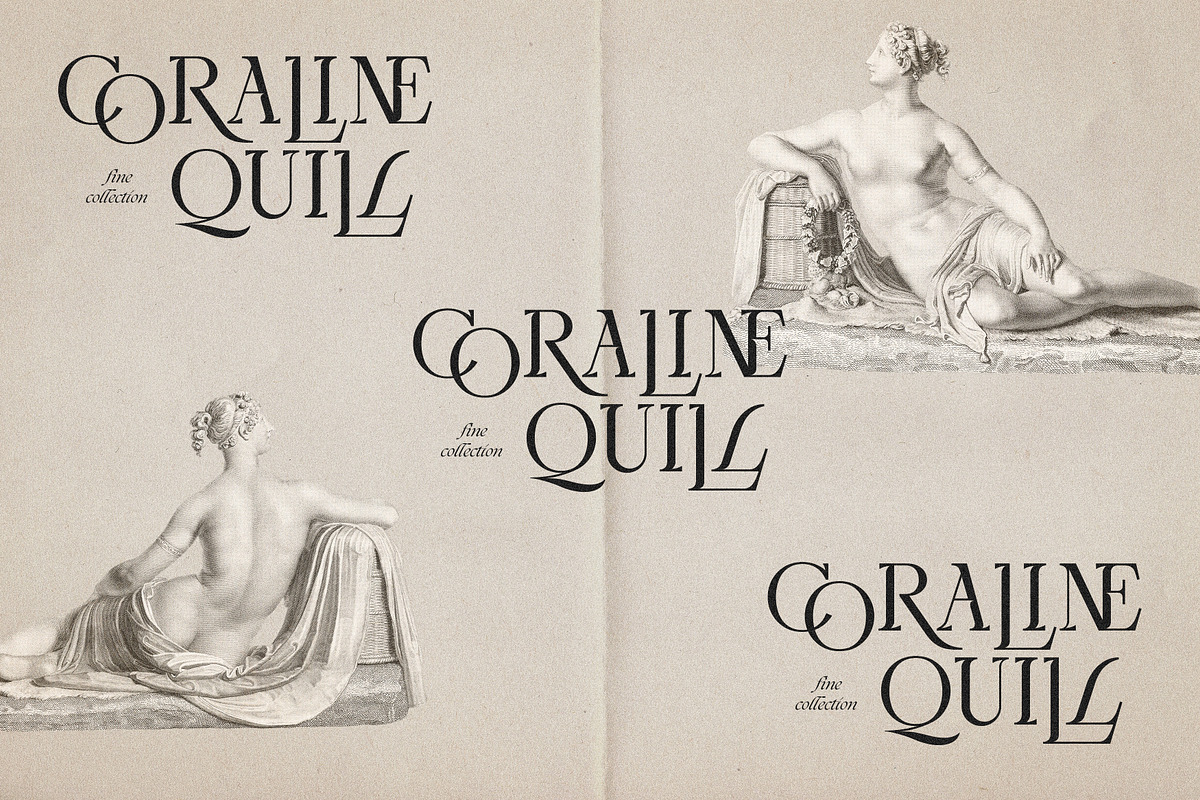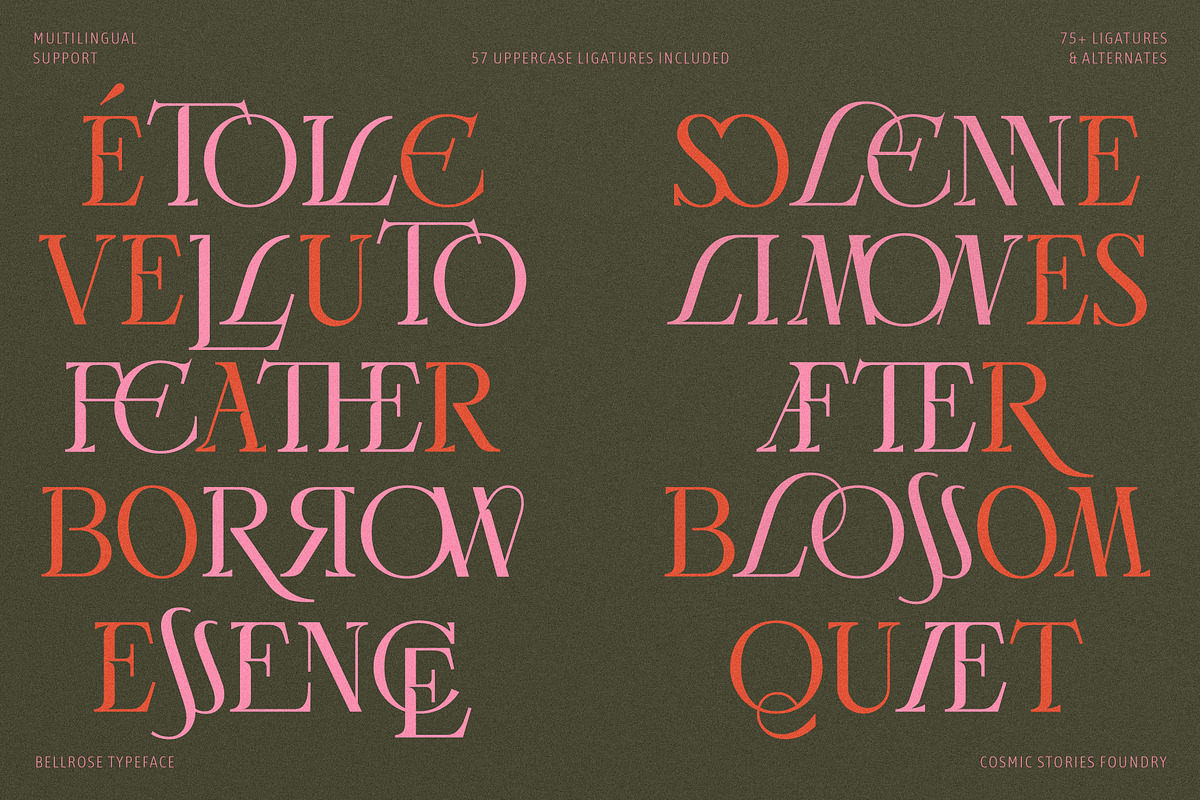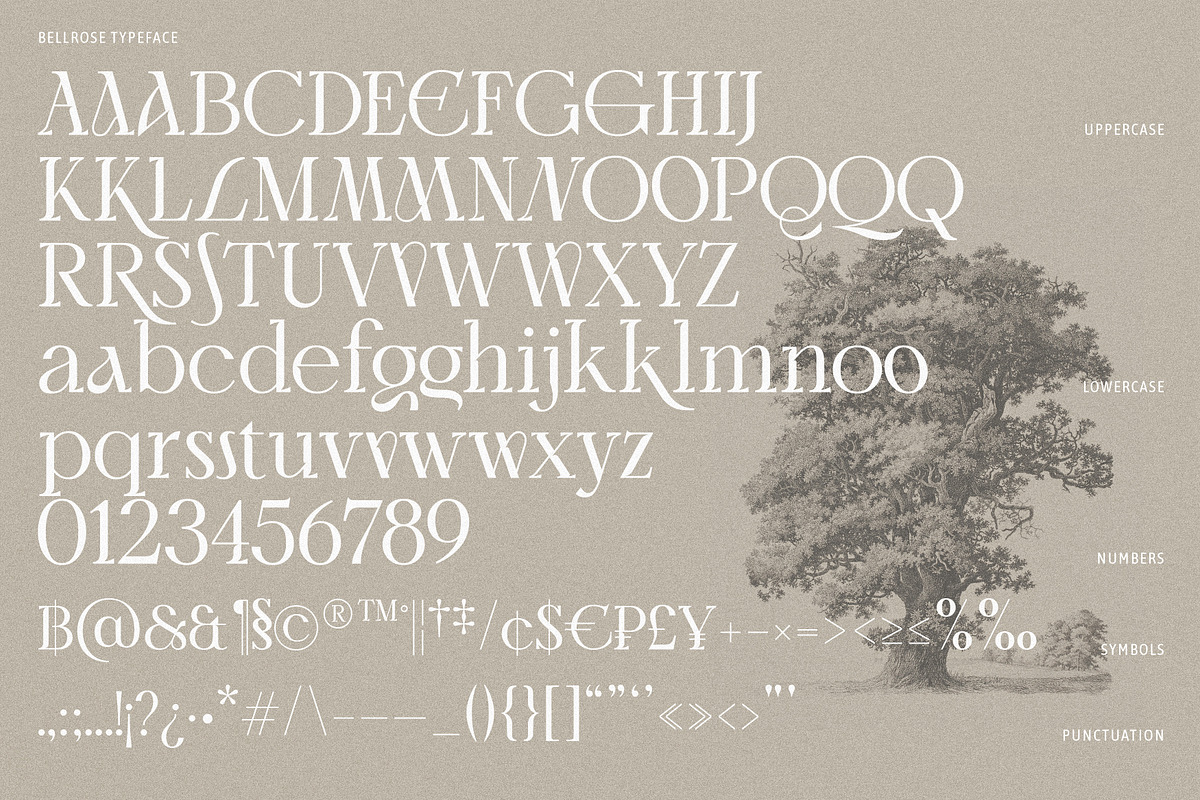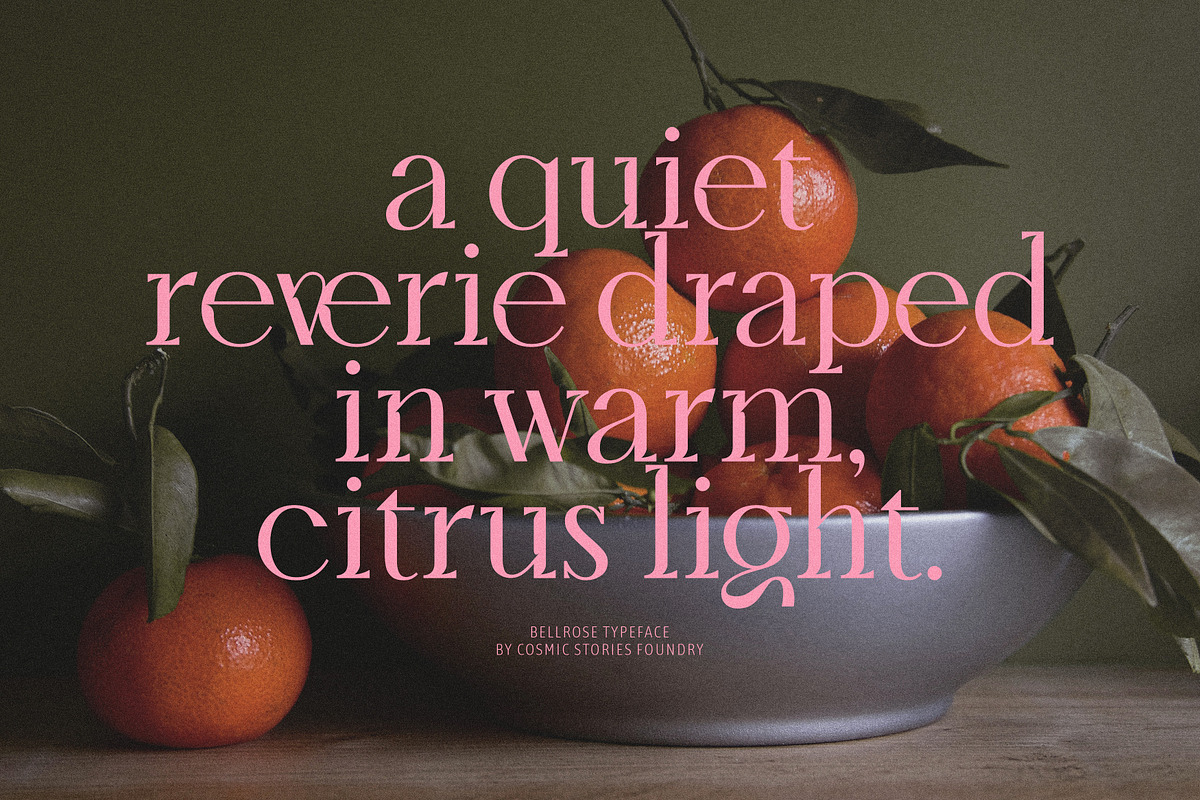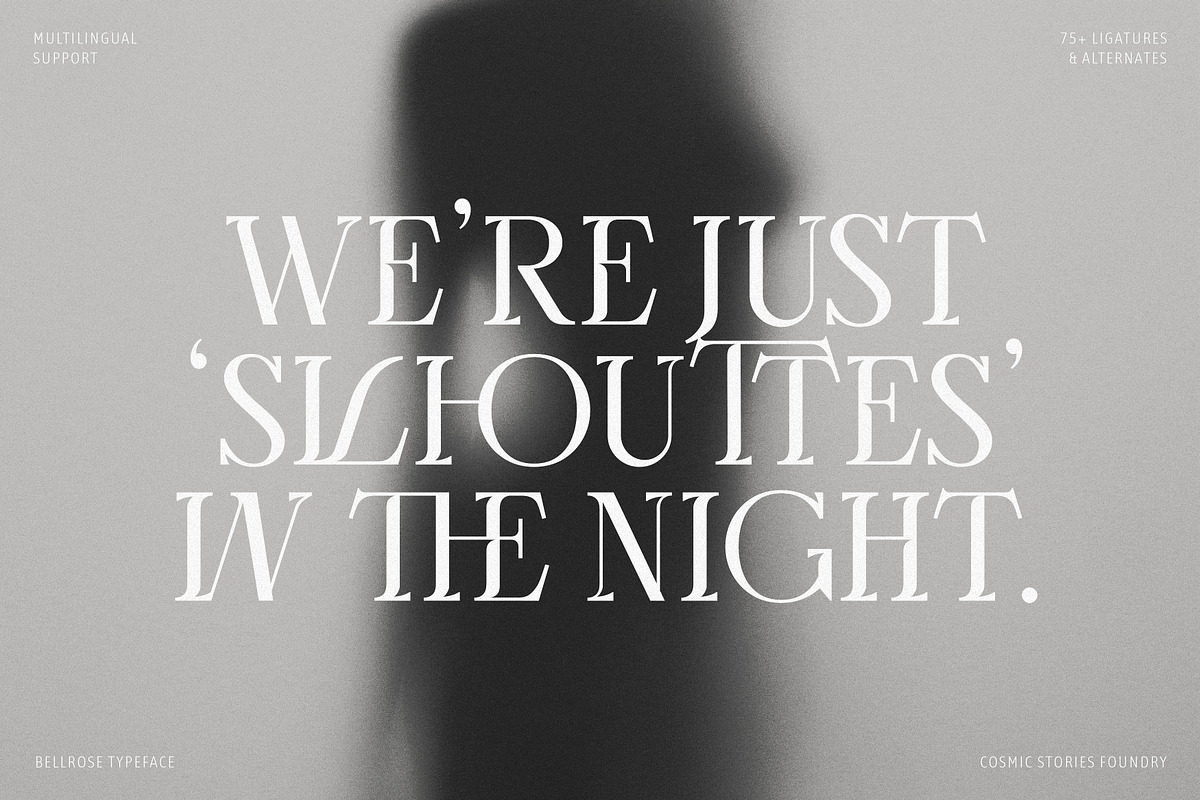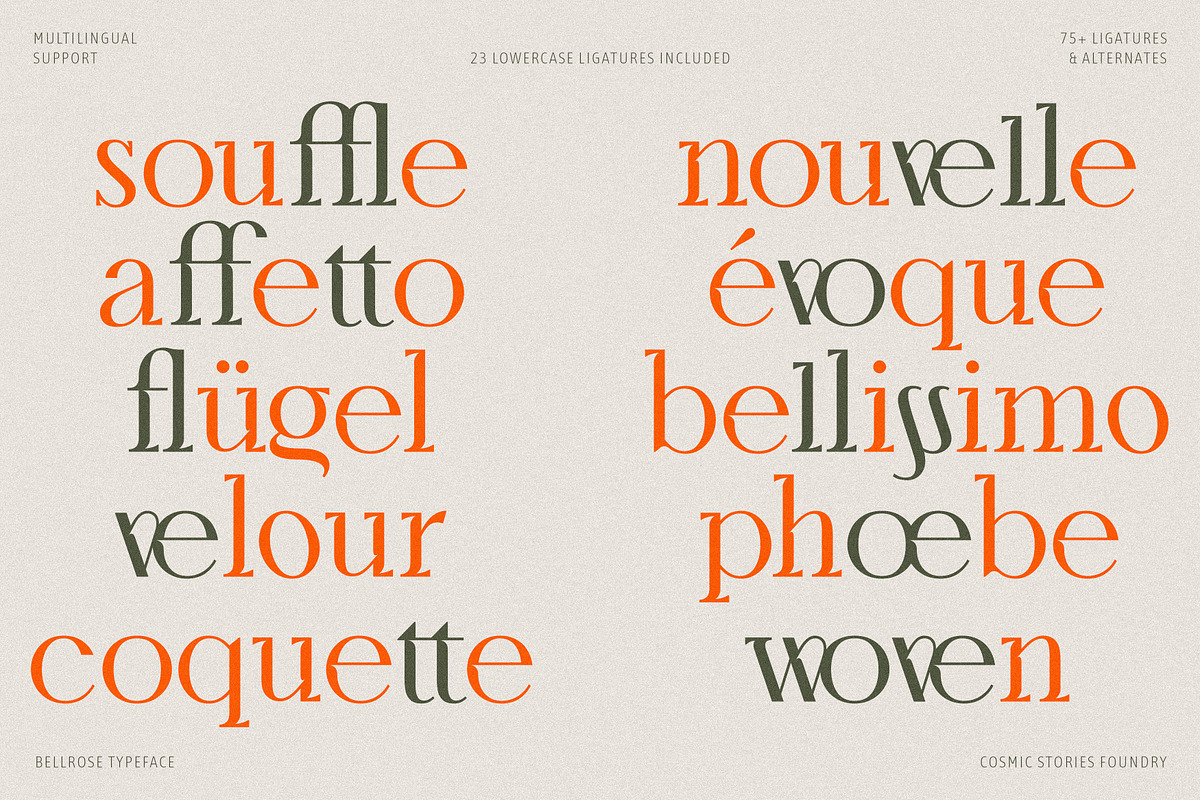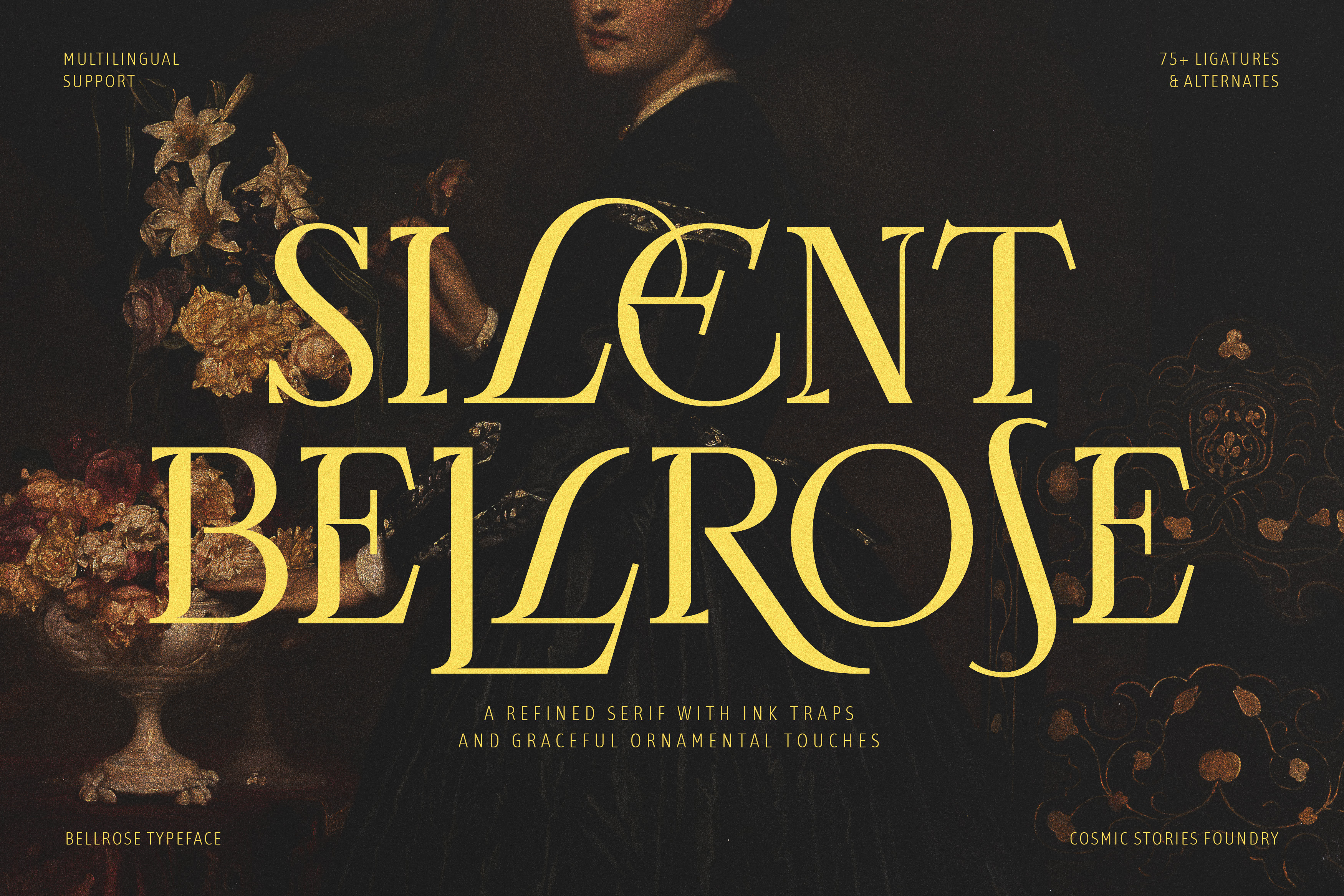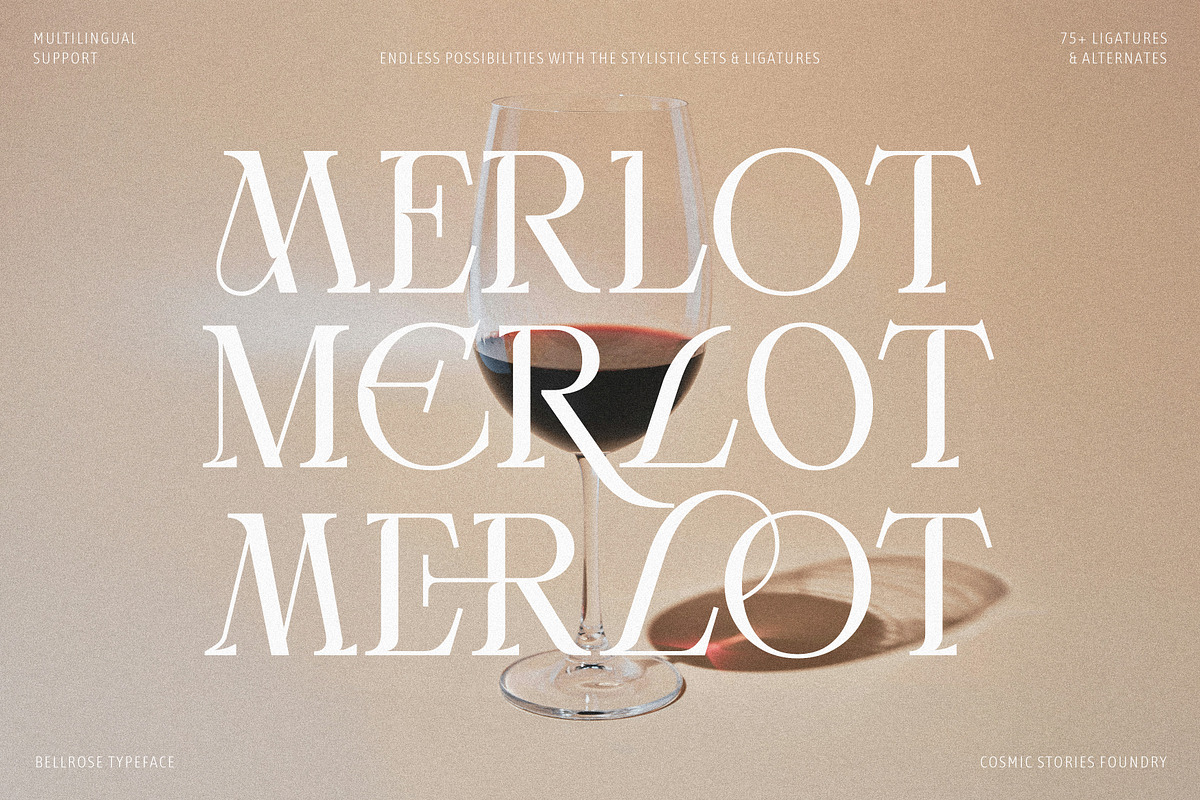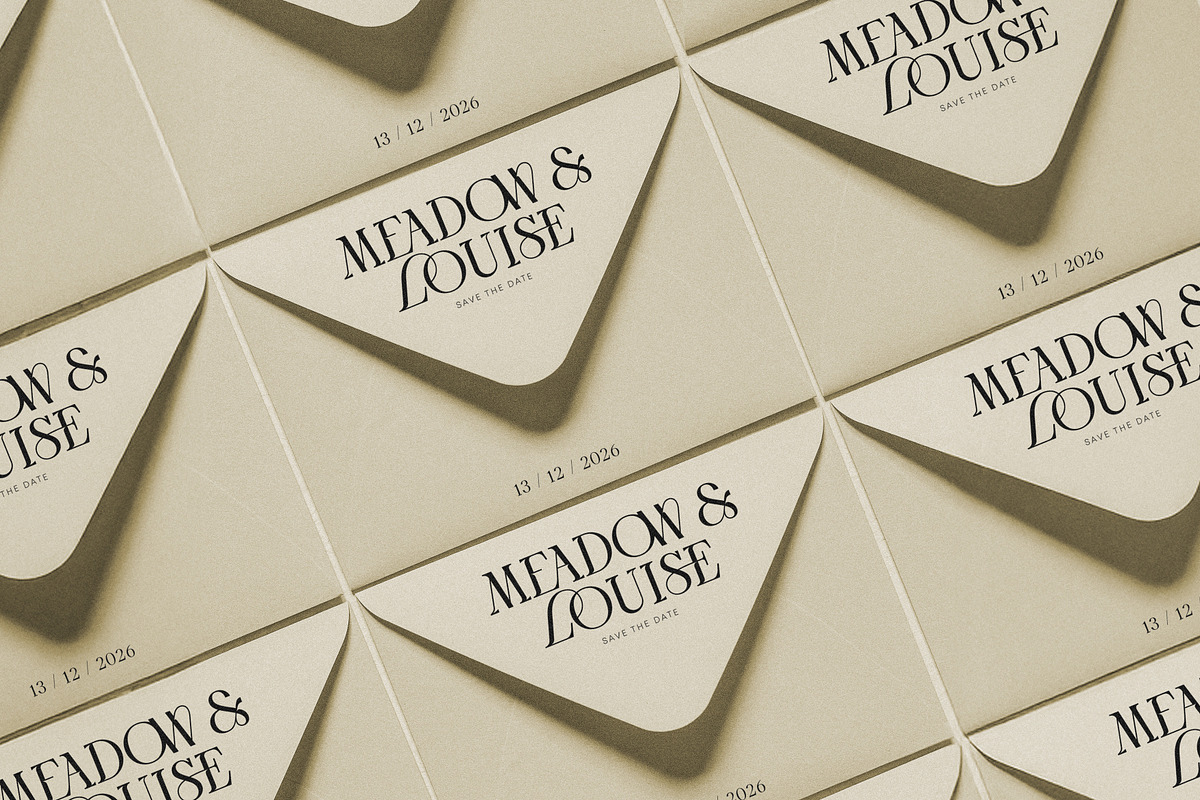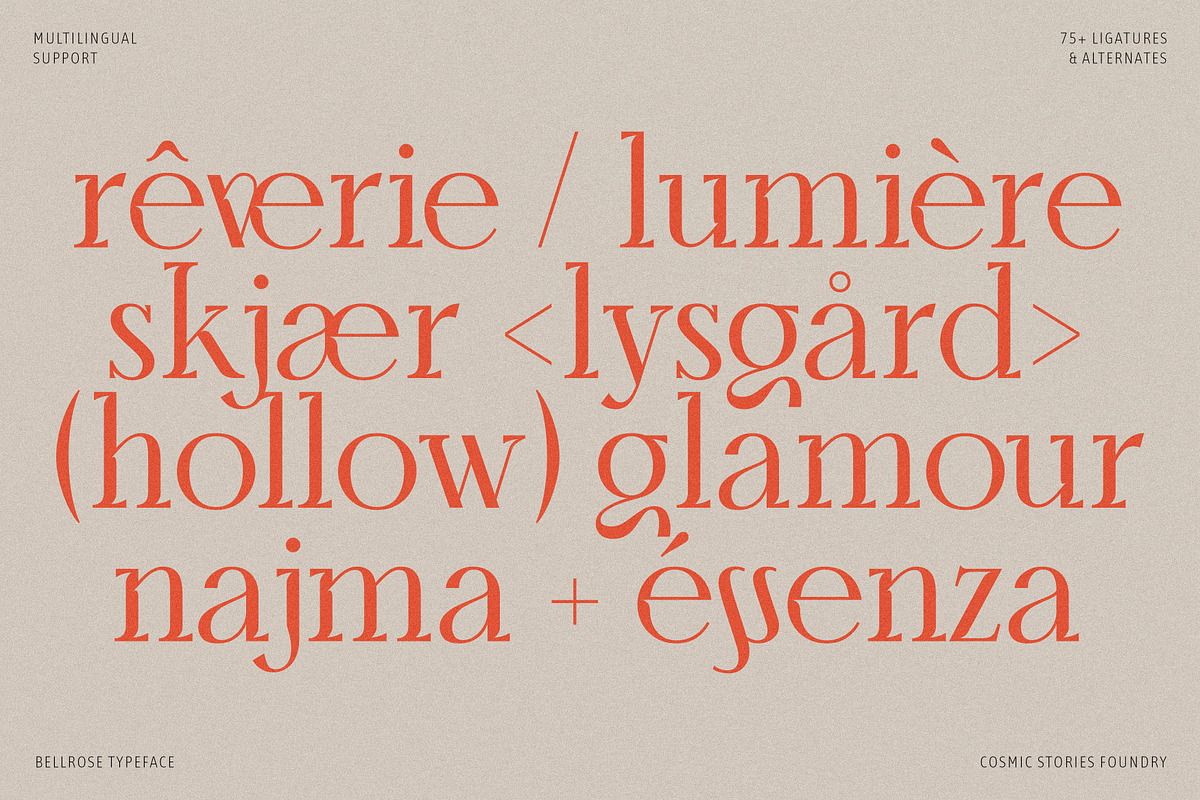
Bellrose Display Serif Font
Bellrose, a Classic Ornamental Serif Display Font
Bellrose is a refined serif display font where structure meets grace. With distinctive ink traps, sculpted contrasts, and ornamental details, it evokes the quiet elegance of classic and vintage typography while embracing a modern sensibility.
Each letter was drawn with intention — sharp edges intertwine with soft curves to create a design that feels both timeless and expressive. The typeface also includes a set of exclusive ligatures, carefully crafted to enhance flow and add a unique personality to every composition.
Perfectly suited for editorial titles, luxury branding, fine packaging, editorial design, refine typographic compositions and artistic layouts, Bellrose brings a subtle sense of drama and sophistication to any project.
- 75+ Elegant Ligatures
- Stylistic Sets for added personality
- Multilingual support (Western, Central & Eastern European languages)
Ideal for:
- Luxury branding
- Fashion editorials
- Fine packaging
- Artistic layouts
- High-end stationery
Bellrose speaks softly, but leaves a lasting impression.